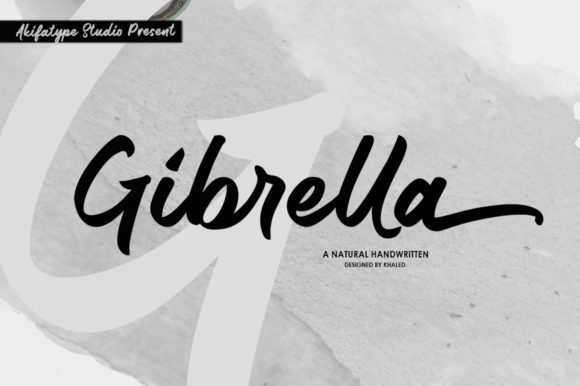
Gibrella Font: Elevate Your Designs with a Stylish and Bold Handwritten Touch
Are you looking for a font that can add a touch of elegance and sophistication to your designs? Look no further than the Gibrella Font. This gorgeous and bold handwritten font is crafted to give your headlines and logotype projects a stylish touch that’s sure to turn heads. With its strong, confident, and dynamic feel, Gibrella Font is the perfect choice for designers and crafters who want to add a nostalgic character to their work.
What Makes Gibrella Font So Special?
Gibrella Font is more than just a font – it’s a design statement. Its bold and handwritten style reads as strong, confident, and dynamic, making it perfect for headlines, logotypes, and any other design project where you want to make a statement. The font’s unique and elegant style is sure to add a touch of sophistication to your work, setting it apart from the crowd.
One of the best things about Gibrella Font is that it’s PUA (Private Use Area) encoded. This means that you can access all of the glyphs and swashes with ease, giving you complete creative control over your designs. With PUA encoding, you can easily access the font’s extensive character set, including ligatures, alternates, and swashes, making it easy to create beautiful and unique designs.
Gibrella Font is perfect for designers and crafters who want to add a touch of elegance and sophistication to their work. Whether you’re working on a logo, brochure, or website, this font is sure to make a statement. Its bold and handwritten style makes it perfect for headlines and titles, while its elegant and refined feel makes it suitable for body text and other design elements.
Key Features of Gibrella Font
- Bold and Handwritten Style: Gibrella Font features a bold and handwritten style that’s perfect for making a statement.
- PUA Encoding: The font is PUA encoded, making it easy to access all of the glyphs and swashes.
- Extensive Character Set: Gibrella Font features an extensive character set, including ligatures, alternates, and swashes.
- Nostalgic Character: The font’s unique and elegant style adds a touch of nostalgic character to your designs.
- Perfect for Headlines and Logotypes: Gibrella Font is perfect for headlines, logotypes, and any other design project where you want to make a statement.
Tips and Tricks for Getting the Most Out of Gibrella Font
- Experiment with Different Sizes and Colors: Gibrella Font looks great in a variety of sizes and colors. Experiment with different combinations to find the one that works best for your design.
- Use the Font’s Swashes and Glyphs: The font’s swashes and glyphs are a great way to add a touch of elegance and sophistication to your designs. Use them to create beautiful and unique design elements.
- Pair the Font with Other Fonts: Gibrella Font pairs well with a variety of other fonts. Experiment with different combinations to find the one that works best for your design.
Gibrella Font is a gorgeous and bold handwritten font that’s perfect for designers and crafters who want to add a touch of elegance and sophistication to their work. With its strong, confident, and dynamic feel, Gibrella Font is sure to make a statement in any design project. Its PUA encoding makes it easy to access all of the glyphs and swashes, giving you complete creative control over your designs. So why wait? Download Gibrella Font today and start creating beautiful and unique designs that are sure to turn heads.